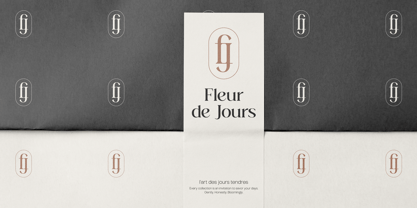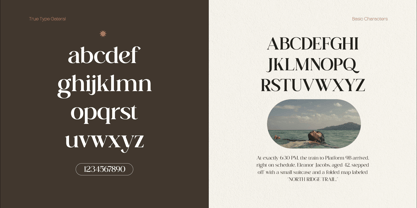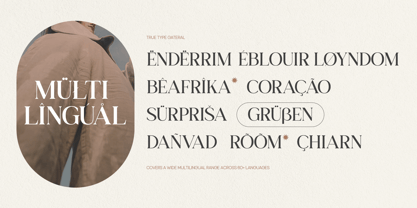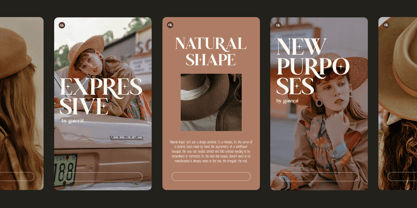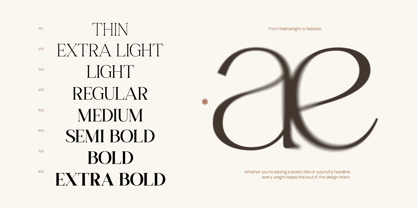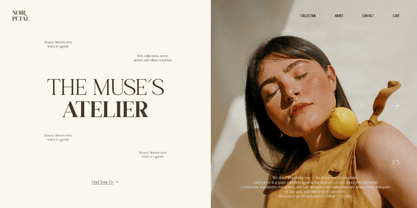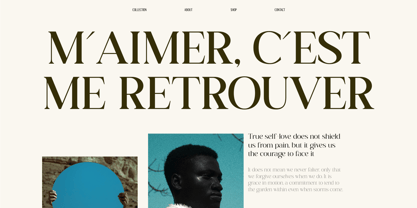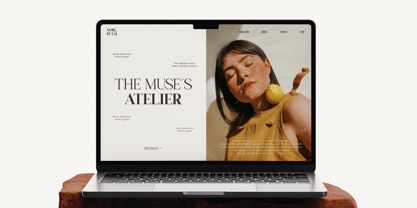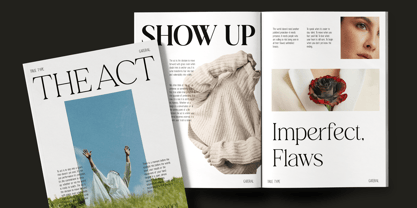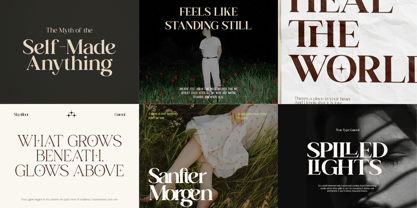
TRT Gateral
by True Type Lab
The TRT Gateral Font Family was designed by Yusilo Oktaprima Ardani and published by True Type Lab. TRT Gateral contains 8 styles and family package options. More about this family
TRT Gateral is a serif typeface designed with clarity, balance, and subtle elegance in mind. Its clean structure and gentle contrast make it suitable for a wide range of uses from branding and editorial design to packaging and digital content.
Built to be readable at both large and small sizes, TRT Gateral offers a professional tone without feeling cold or overly formal. It’s a typeface that feels confident, yet approachable — perfect for thoughtful design work.
Great for editorial layouts, brand identities, books, logos, presentations, and social media — anywhere you need typography that feels refined but not rigid. TRT Gateral gives you a flexible tool to create calm, clear, and well-structured visual communication.
Designers: Yusilo Oktaprima Ardani
Foundry: True Type Lab